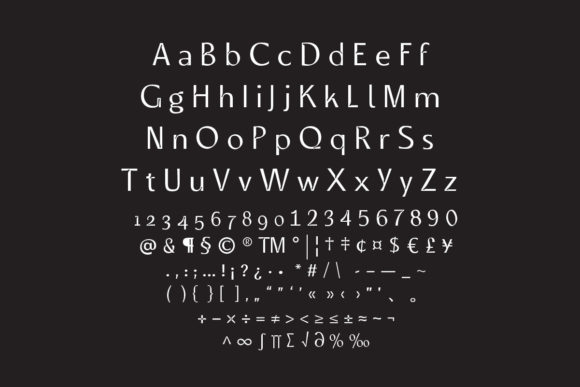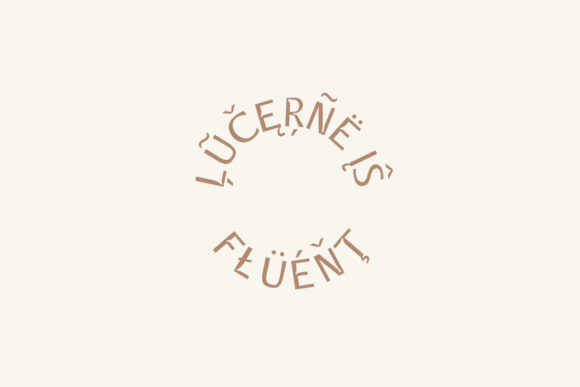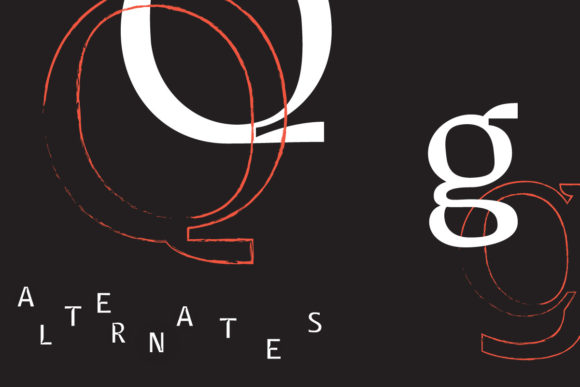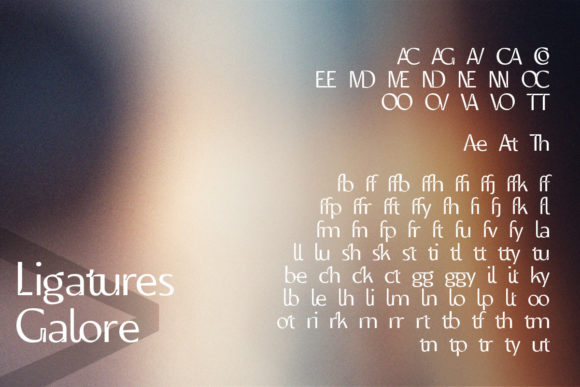
Introduction to Lucerne Grotesk Font
Lucerne Grotesk is a versatile and bold display font, featuring a classic flair & visual ink-traps.
It fits perfectly in modern and minimalist design applications, whether you want to create a unique brand or to make your print stand out .
Key Features of Lucerne Grotesk Font